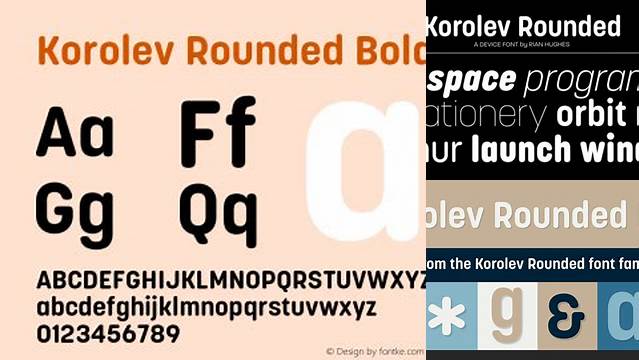
Hey design enthusiasts! If you're on the hunt for a typeface that brings a blend of modern flair and friendly approachability, you've landed in the right spot. The Korolev Rounded Bold font is a seriously cool option that's been catching a lot of eyes. It’s known for its smooth curves and robust weight, making it a versatile choice for a whole range of projects. In this guide, we're going to dive deep into what makes this font so special, where you can snag a free download, and how you can best utilize its unique characteristics to make your designs pop. So, buckle up, guys, because we're about to explore the wonderful world of the Korolev Rounded Bold font!
Understanding the Appeal of Korolev Rounded Bold
So, what’s the big deal with the Korolev Rounded Bold font? Well, it’s all about its distinctive personality. Unlike sharper, more geometric fonts, the rounded terminals give it a softer, more inviting feel. This makes it incredibly user-friendly and approachable, which is a huge plus in design. Whether you're crafting a brand identity, designing a website, or laying out a print publication, this font communicates warmth and reliability. The 'bold' aspect of the name isn't just for show; it means this font carries a significant visual weight, ensuring it stands out without being overwhelming. It’s perfect for headlines, titles, and any text that needs to grab attention. Plus, its clean lines mean it remains legible even at smaller sizes, which is a win-win for designers. We’re talking about a font that balances strength with a gentle touch, making it a standout choice for many applications. The consistent curvature throughout its characters provides a harmonious look, contributing to its overall aesthetic appeal. This isn't just another typeface; it's a design element that can truly elevate your work, guys.
Exploring Variations of Korolev Rounded Bold
While we're focusing on the Korolev Rounded Bold font, it's worth noting that typefaces often come in families with various weights and styles. You might find the Korolev family includes lighter weights like 'Regular' or 'Light,' or perhaps an 'Italic' version. Exploring these variations can significantly expand your design possibilities. For instance, you could use the bold version for your main headings and a lighter weight for subheadings or body text, creating a consistent yet dynamic typographic hierarchy. This kind of variation allows for subtle contrasts and emphasizes different elements within your design. Sometimes, a font family might also have condensed or extended versions, offering even more flexibility. If you're particularly fond of the rounded aesthetic but need something less impactful than bold, seeking out the regular or medium weights of the Korolev family is a smart move. This approach ensures that your entire design utilizes a cohesive typographic language, enhancing its professional look and feel. Guys, mixing weights from the same family is a pro tip that really ties a design together.
Optimizing Korolev Rounded Bold for Digital Use
When you download the Korolev Rounded Bold font, you'll want to make sure it looks fantastic on screens. For digital applications – think websites, apps, and social media graphics – legibility is key. The rounded nature of this font actually helps with screen readability, as the softer edges can prevent pixelation artifacts. However, it's still crucial to test it at various sizes. Use it for headlines and short blocks of text where its impact can be fully appreciated. For longer paragraphs, you might consider pairing it with a more neutral, highly legible sans-serif font. When implementing it on a website, ensure you're using optimized font files (like WOFF or WOFF2) for faster loading times. Browser compatibility is also something to keep in mind. Most modern browsers handle TrueType and OpenType fonts well, but it's always wise to test your design across different platforms. Remember, the goal is to make your content easy and enjoyable to consume, and the Korolev Rounded Bold font, used thoughtfully, can definitely contribute to that. It’s all about making sure your message shines through, no matter the device, you dig?
Enhancing Headlines with Korolev Rounded Bold
This is where the Korolev Rounded Bold font truly shines, guys! Its substantial weight and friendly curves make it an absolute powerhouse for headlines and titles. Imagine a blog post with a catchy title set in this font – it immediately draws the reader in. Or a product launch announcement where the bold lettering communicates excitement and confidence. The rounded edges add a touch of playfulness or modernity, depending on the context, differentiating it from more traditional, sharp-serifed bold fonts. When you're designing posters, flyers, or website banners, using Korolev Rounded Bold for your key messaging ensures it won't get lost. It has a strong presence without feeling aggressive, making it suitable for a wide array of brands, from tech startups to artisanal bakeries. Don't be afraid to play with color and size, either. This font holds up well even when scaled quite large, maintaining its clarity and impact. It’s a fantastic tool for creating visual hierarchy and guiding the viewer's eye to the most important information first. Seriously, give it a shot for your next big headline – you won't be disappointed!
####### Designing Logos with Korolev Rounded Bold
Thinking about creating a logo? The Korolev Rounded Bold font could be your secret weapon. Its unique combination of boldness and rounded softness makes it memorable and distinctive. For businesses aiming for a friendly, approachable, and modern brand image, this font is a perfect fit. Think about startups, cafes, or companies targeting a younger demographic. The rounded 'o's and 'e's can evoke a sense of community and openness, while the bold weight conveys stability and trustworthiness. When using it for a logo, you’ll want to ensure it's scalable – meaning it looks good both small (like on a favicon) and large (like on a billboard). The clean design of Korolev Rounded Bold generally ensures good scalability. You might consider customizing it slightly – perhaps altering a letterform or adjusting spacing (kerning) – to make it even more unique to the brand. However, even in its default form, it offers a strong foundation. Guys, a well-chosen font is the backbone of a strong visual identity, and this one has the character to make a brand stand out. It’s all about creating that perfect first impression, right?
######## Utilizing Korolev Rounded Bold in Print Design
Beyond the digital realm, the Korolev Rounded Bold font also makes a splash in print design. Think brochures, business cards, packaging, and even book covers. Its robust weight ensures excellent readability in print, even when dealing with less-than-ideal paper textures or printing resolutions. For business cards, using Korolev Rounded Bold for your name or company title can make a strong, memorable statement. In brochures or flyers, it’s ideal for section titles or calls to action, guiding the reader through the information effectively. For packaging, it can communicate the brand's personality – perhaps playful, modern, or reliable. When working with print, always consider the bleed and trim lines, and ensure your font choice renders crisply. Korolev Rounded Bold, with its clean, rounded forms, typically handles these requirements beautifully. It’s a font that brings a sense of groundedness and modern appeal to any physical product or publication. So, if you're designing for print, don't overlook this versatile gem, guys. It’s got the visual punch you need.
######### Pairing Korolev Rounded Bold with Other Fonts
################################ Final Thoughts on the Korolev Rounded Bold Font
So there you have it, guys! The Korolev Rounded Bold font is a fantastic choice for designers looking for a typeface that balances impact with approachability. Its clean, rounded forms and robust weight make it incredibly versatile for everything from headlines and logos to digital interfaces and print materials. Remember to look for a safe, free download from reputable sources and always check the licensing terms, especially for commercial projects. By understanding its characteristics and pairing it wisely, you can leverage the unique strengths of Korolev Rounded Bold to elevate your designs and create compelling visual experiences. It’s a font that brings both personality and professionalism to the table, making your work stand out. Happy designing!